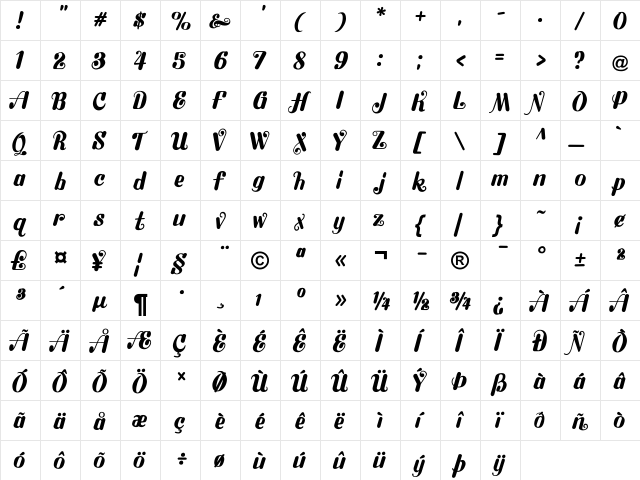
Flubby Regular
| Foundry | CAT-Fonts, Peter Wiegel |
| Designer | Peter Wiegel |
Design Context for Flubby Typeface
Flubby is a composed and adaptable typeface that performs quietly and consistently across a wide range of design contexts.